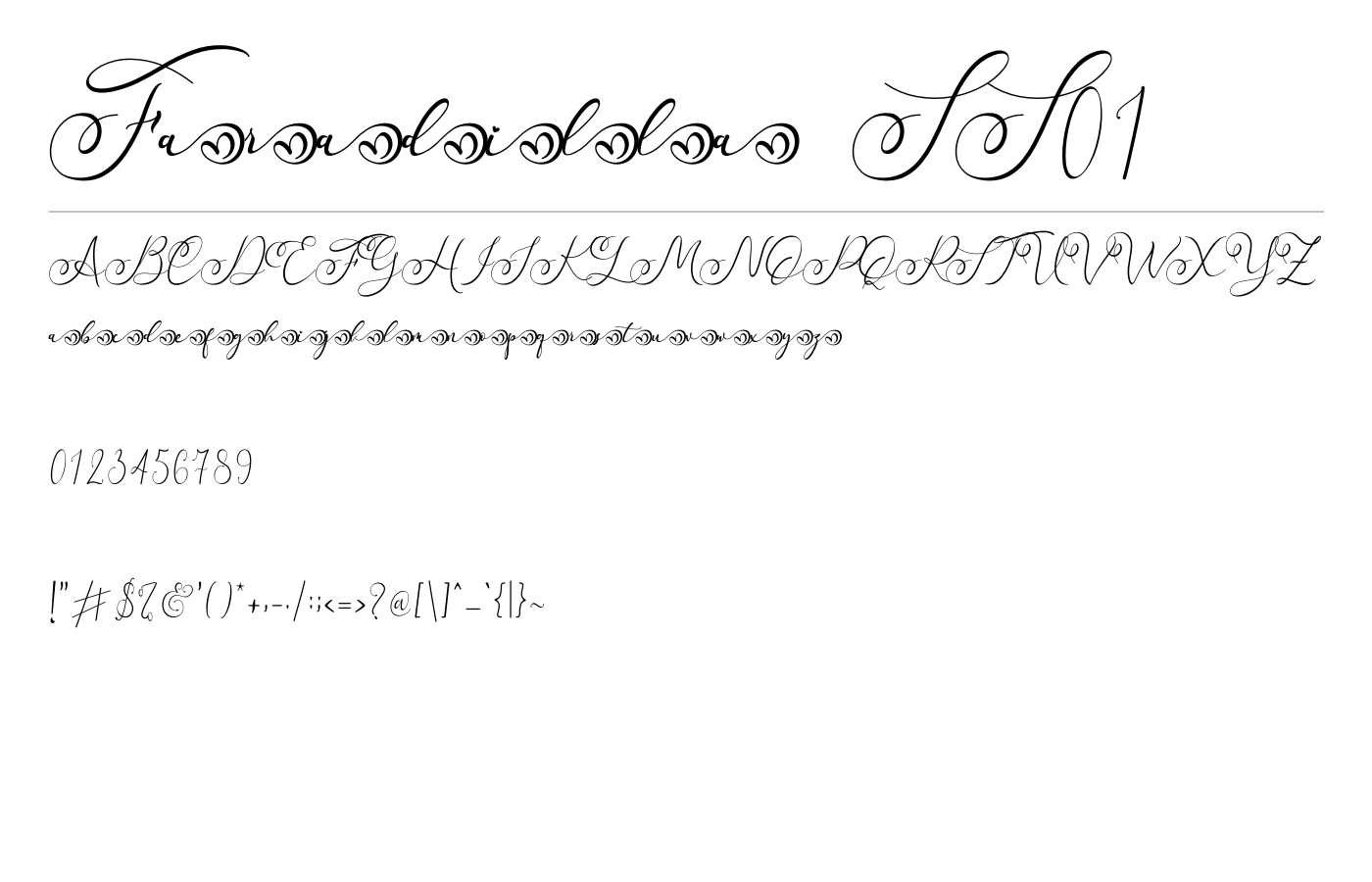
Faradilla is an elegant script font characterized by its thin, flowing strokes and elaborate, decorative swashes that give it a sophisticated, romantic flair. Ideal for luxury branding, wedding invitations, and refined editorial use, it conveys a delicate and artistic personality with its graceful, hand-lettered quality. This font works best in display settings where its ornamental details can shine without compromising readability.
Faradilla Font
About Faradilla Font
| Font family | Faradilla Font |
| Designer | Aldedesign 2018 |